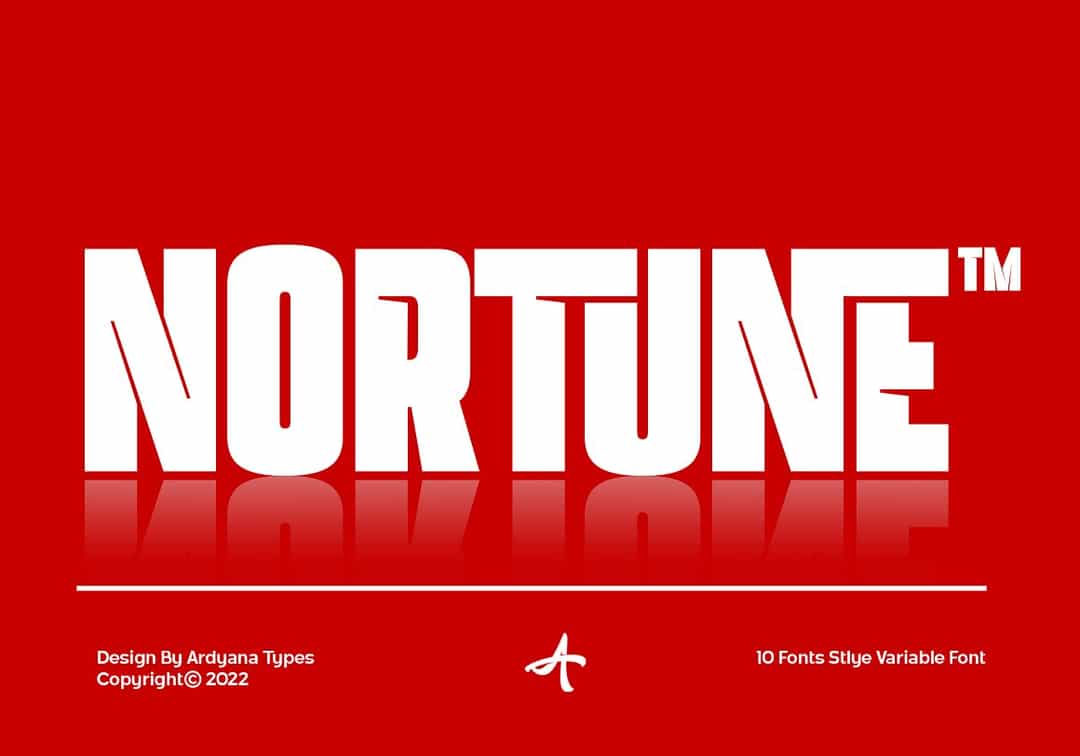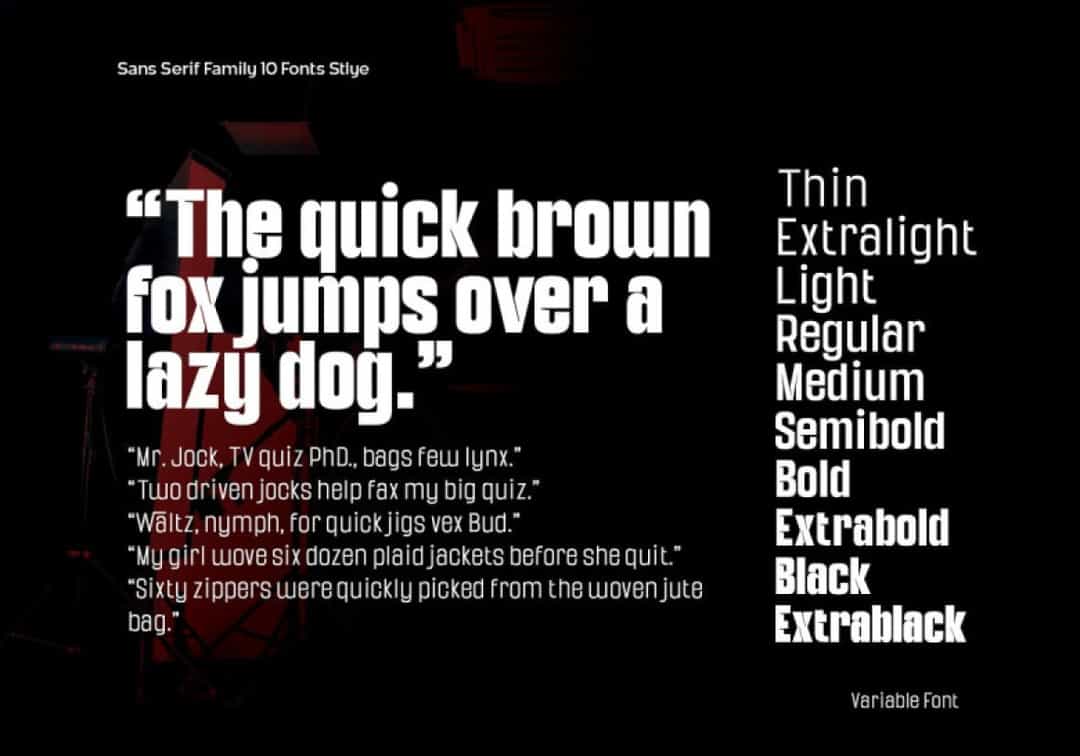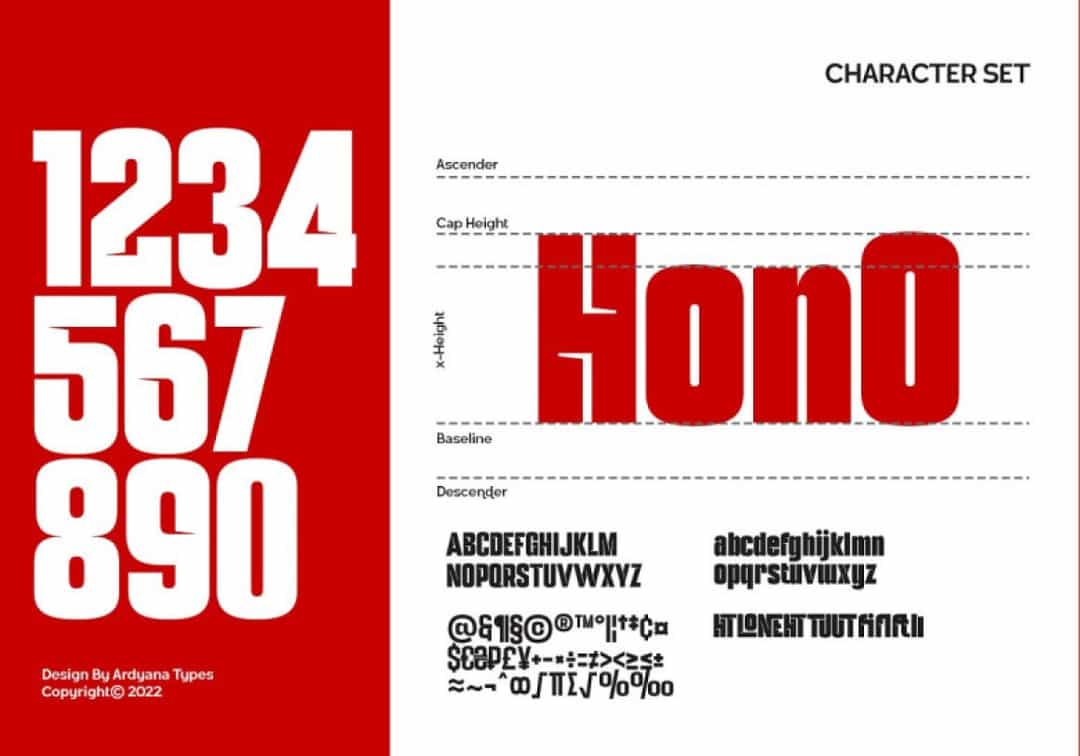
Discover Nortune Font, part of the Sans Serif Display collection—a versatile and unique font perfect for adding a personal touch to your projects. Download it for free and enjoy crafting designs with style, from invitations to social media posts. This font is available exclusively for personal use, giving you the freedom to create without limits. Unlock your creativity with Nortune Font today!
Nortune Extrablack Sans Serif Font is inspired by modern design while blending retro and modern elements to form an elegant and dynamic shape. Perfect for use on designs with modern vintage aesthetics; comes equipped with 10 thickness options making it easy to utilize this font on various projects; supports various languages making internationalization simple too!